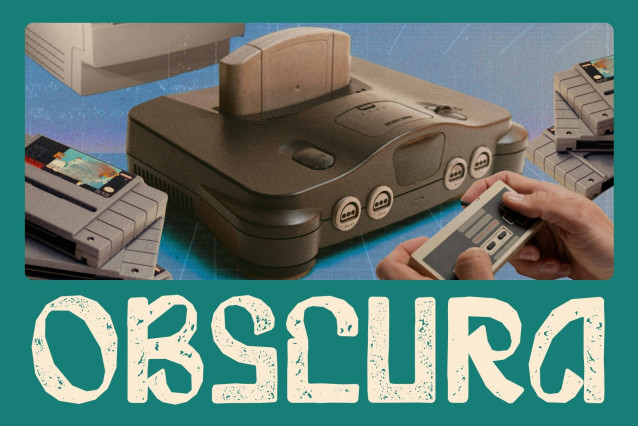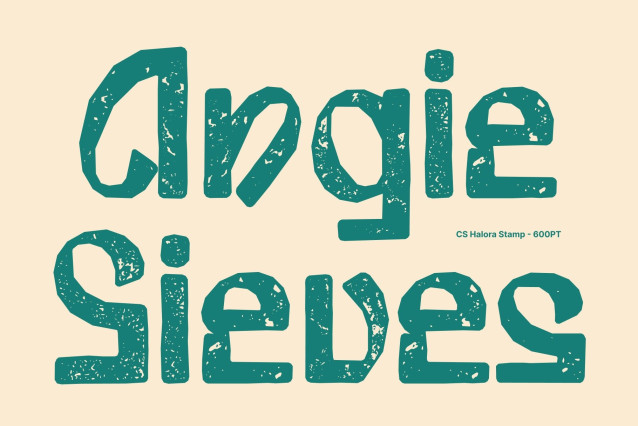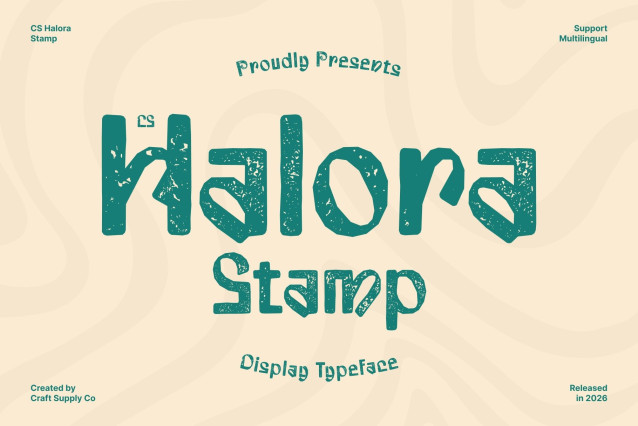
CS Halora Stamp Font
CS Halora Stamp – Decorative Display Font
A Unique Fusion of Style and Structure
This is a modern display font that blends decorative artistry with clean geometric structure, creating a bold and visually striking identity. Enhanced with a subtle stamp texture, it carries a handcrafted, print-inspired feel that adds depth and personality to its contemporary design.
Artistic Flair with Clear Readability
The font’s decorative details enrich its geometric foundation, producing a refined balance between creativity and clarity. While visually expressive, this font maintains strong readability, ensuring your message remains clear while still delivering a distinctive aesthetic impact.
Versatile for Creative Applications
Perfect for posters, branding, advertising, and digital media, this font adapts effortlessly across a wide range of design contexts. Its unique character makes it especially effective for projects that need to capture attention and leave a lasting impression.